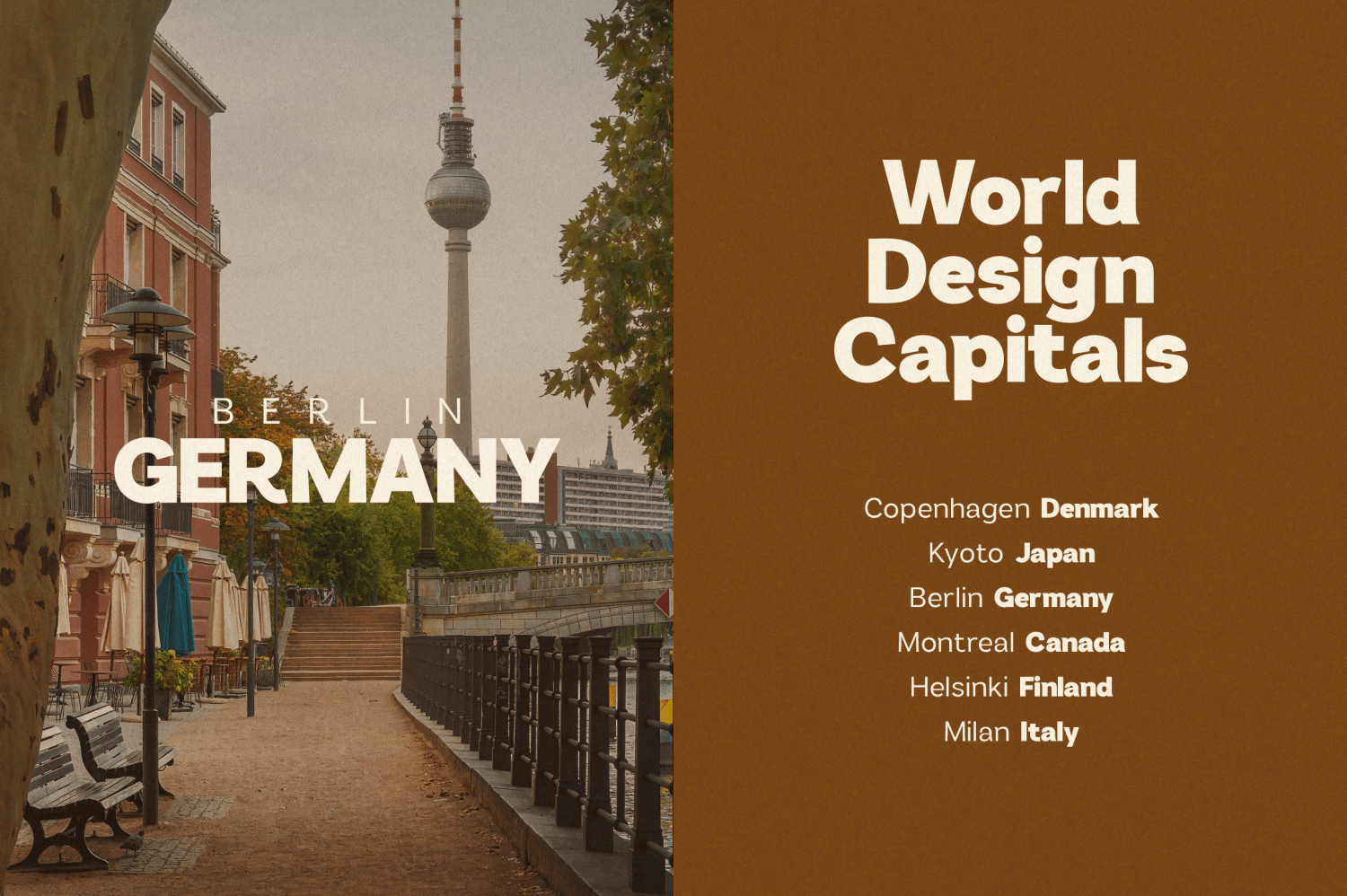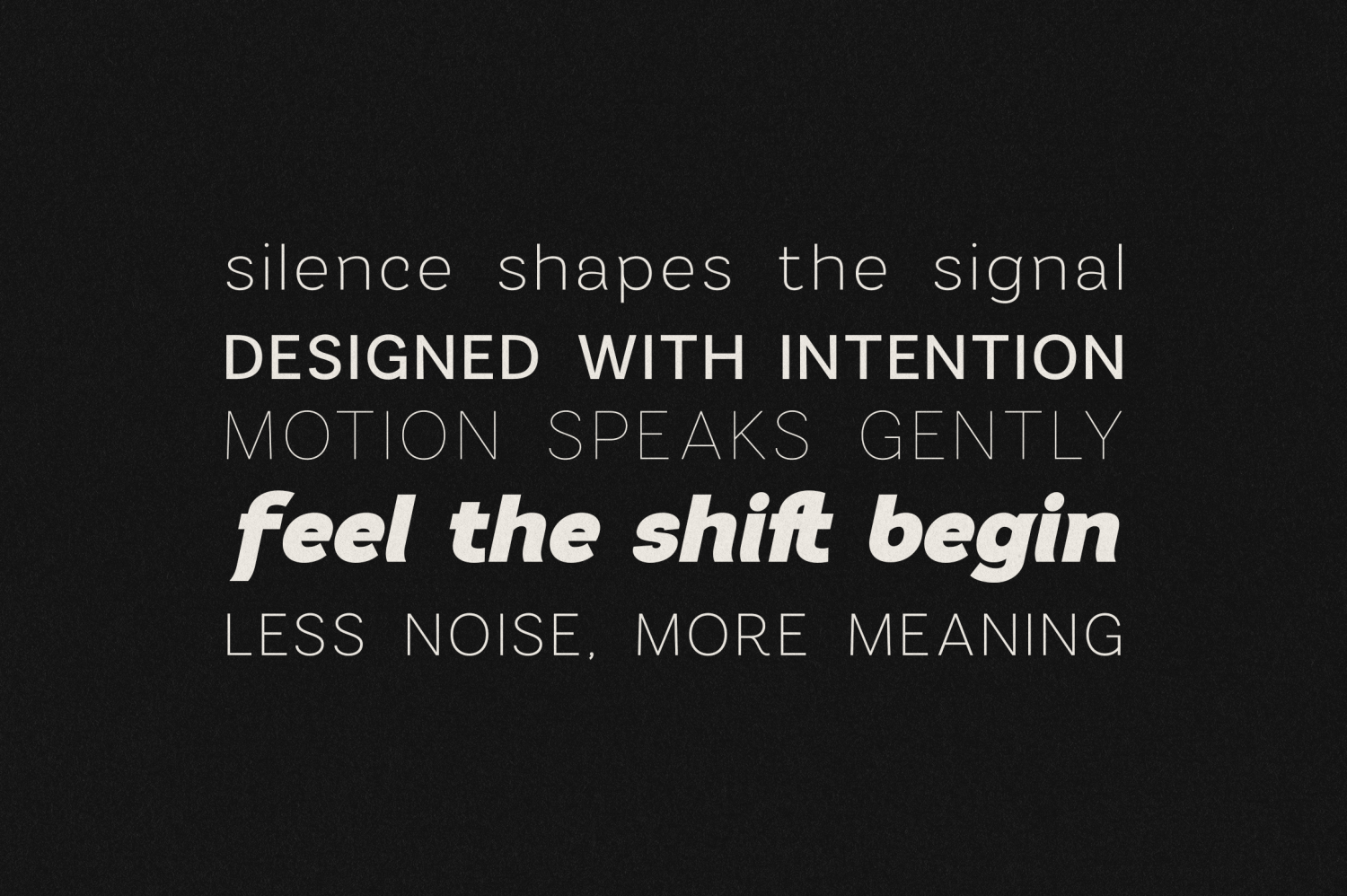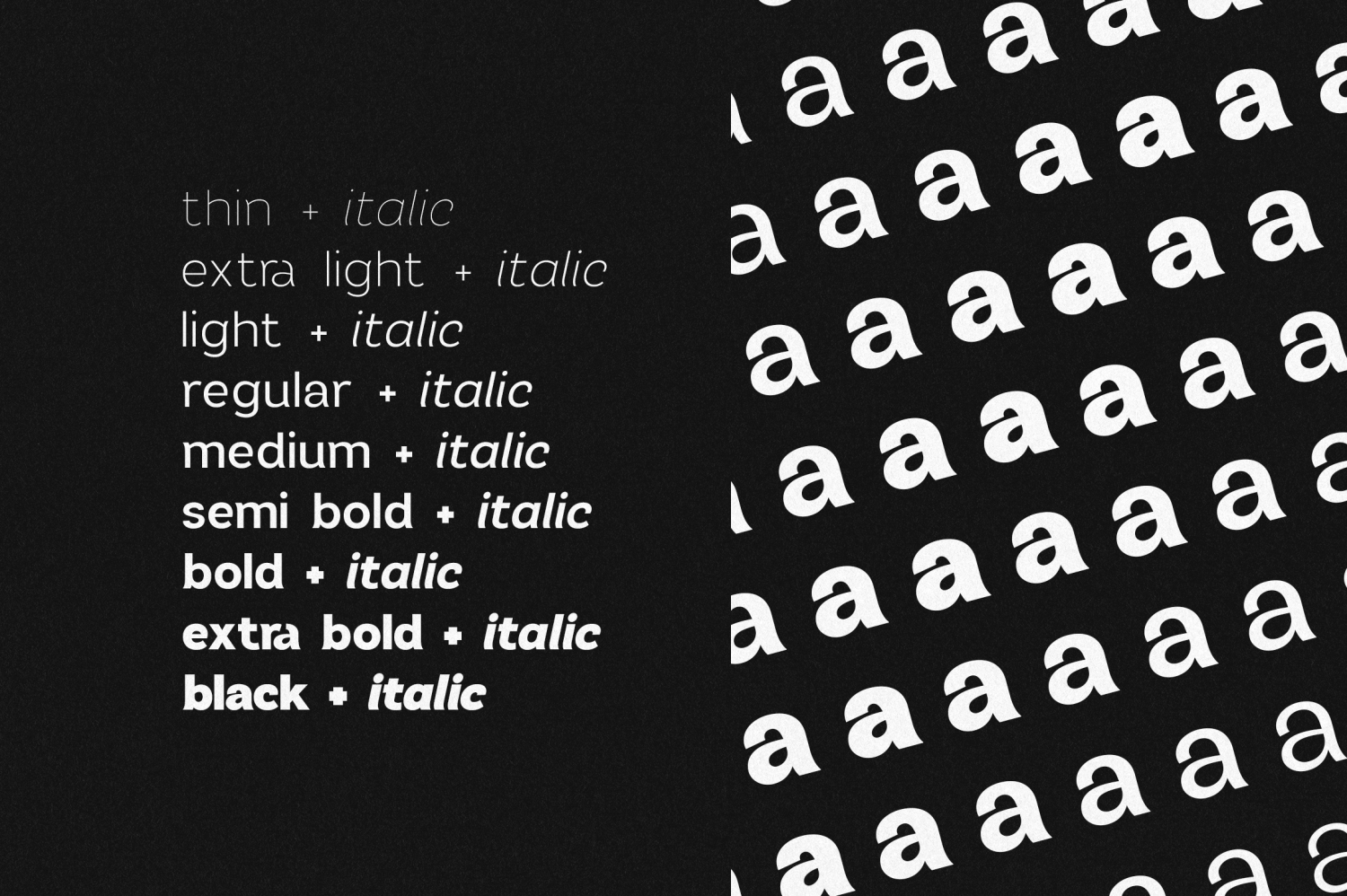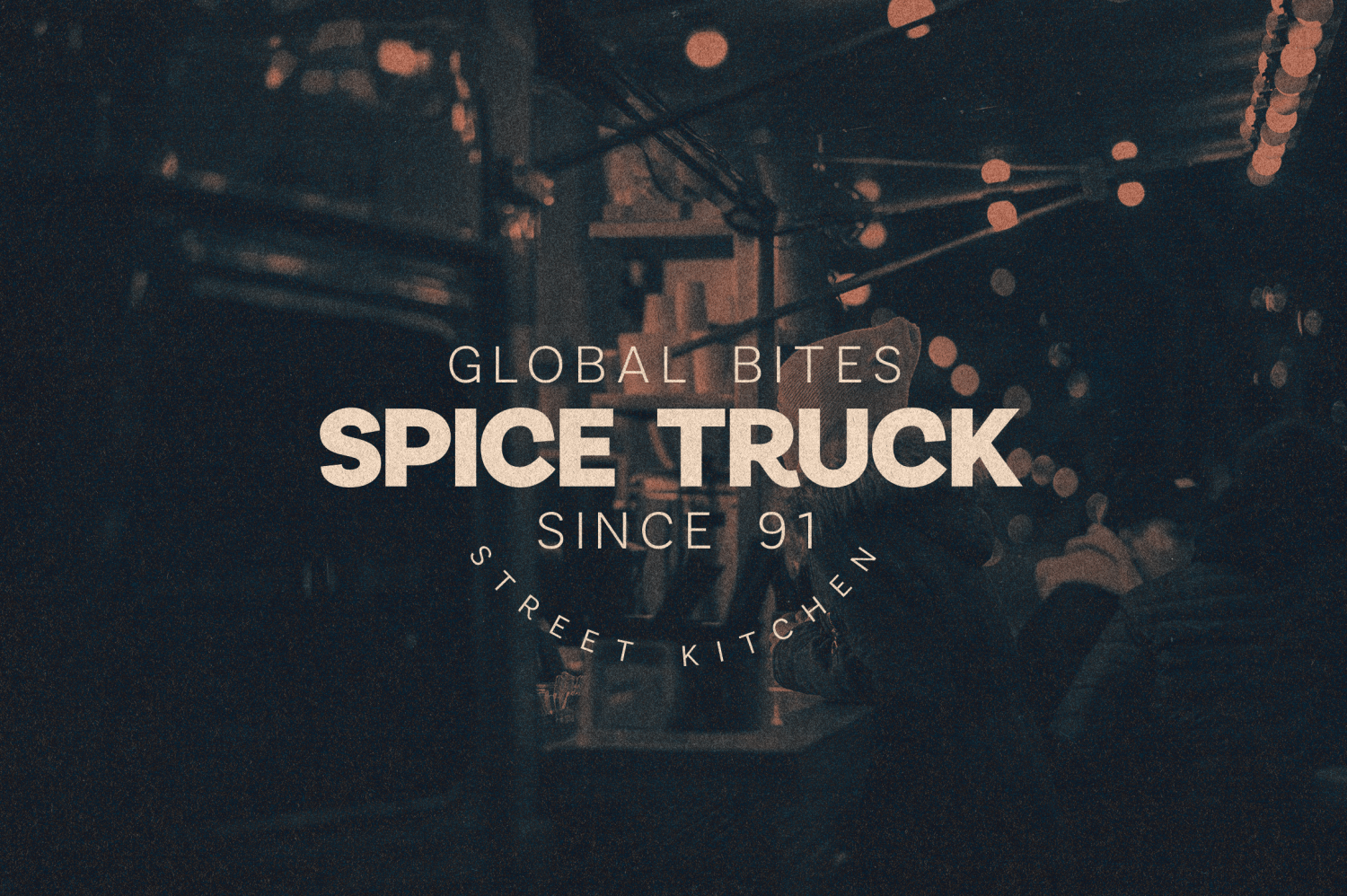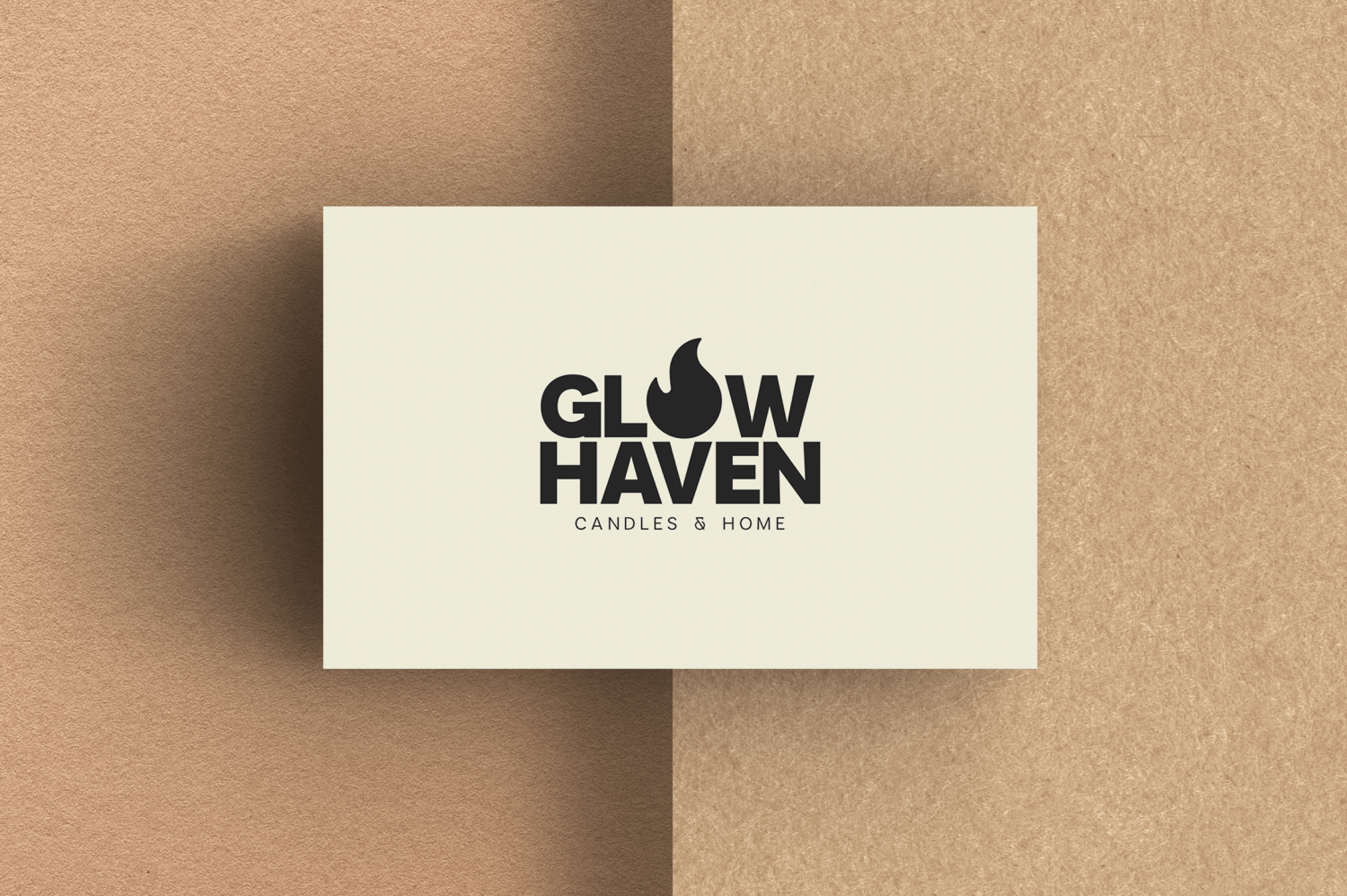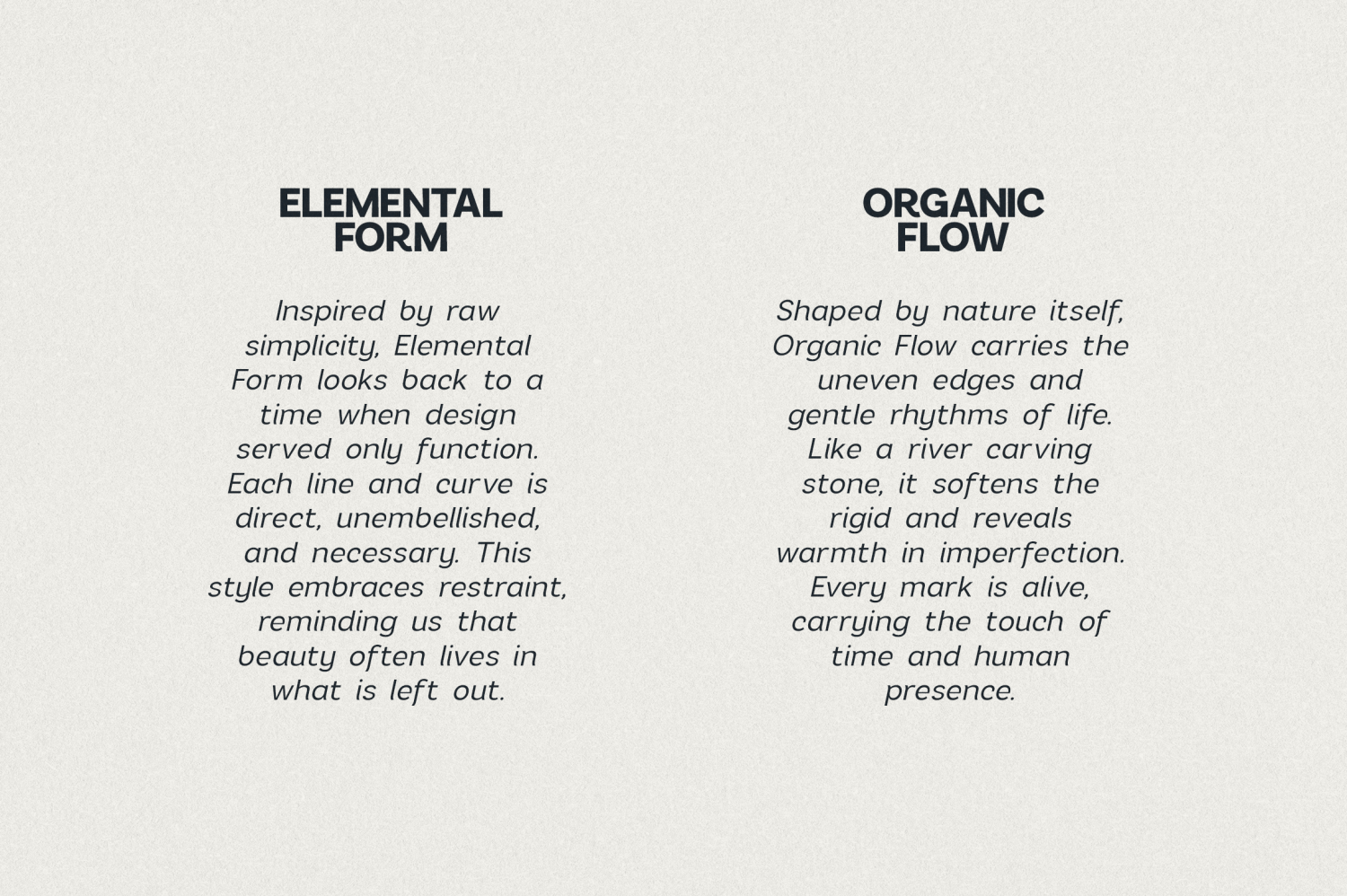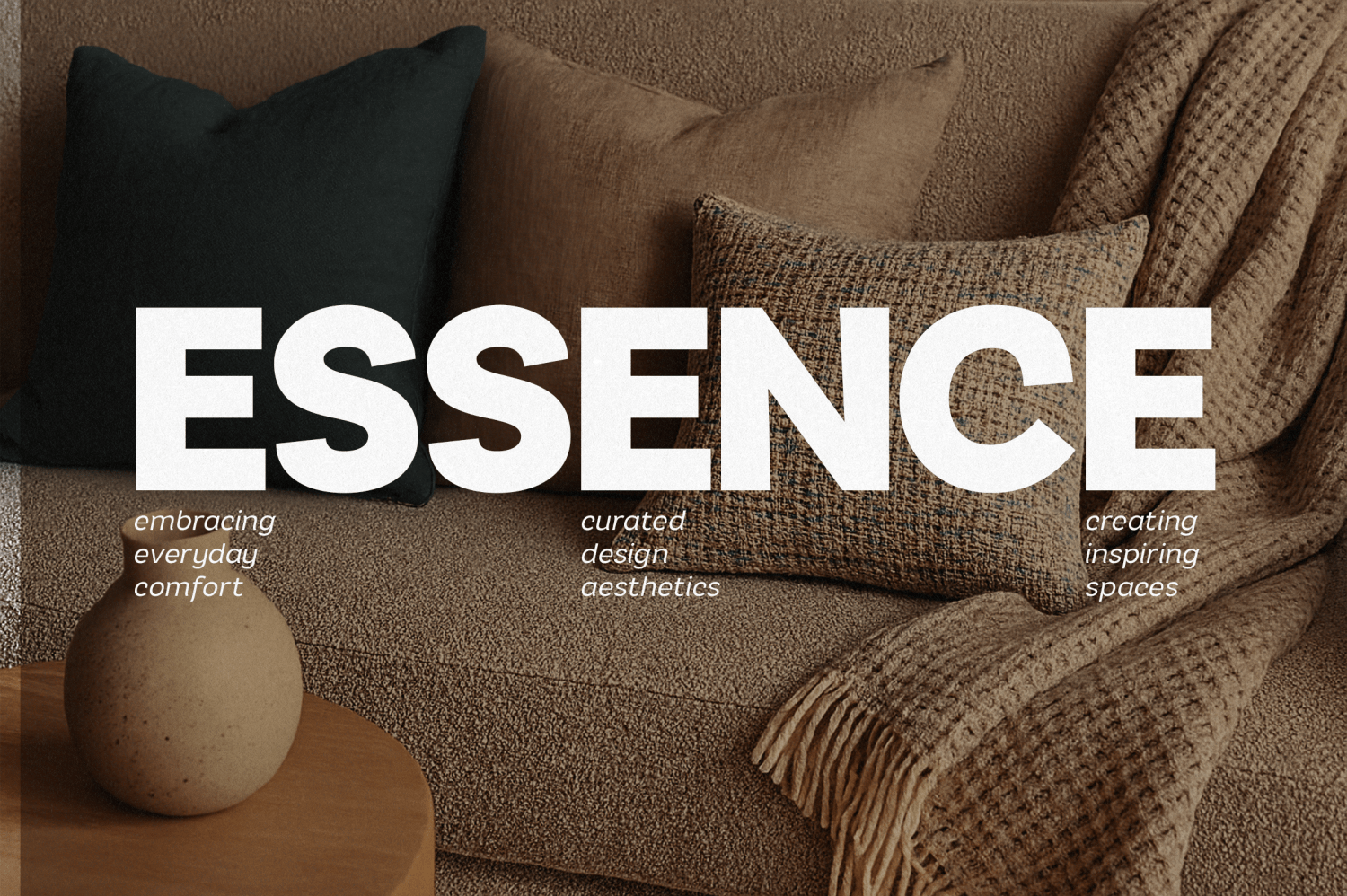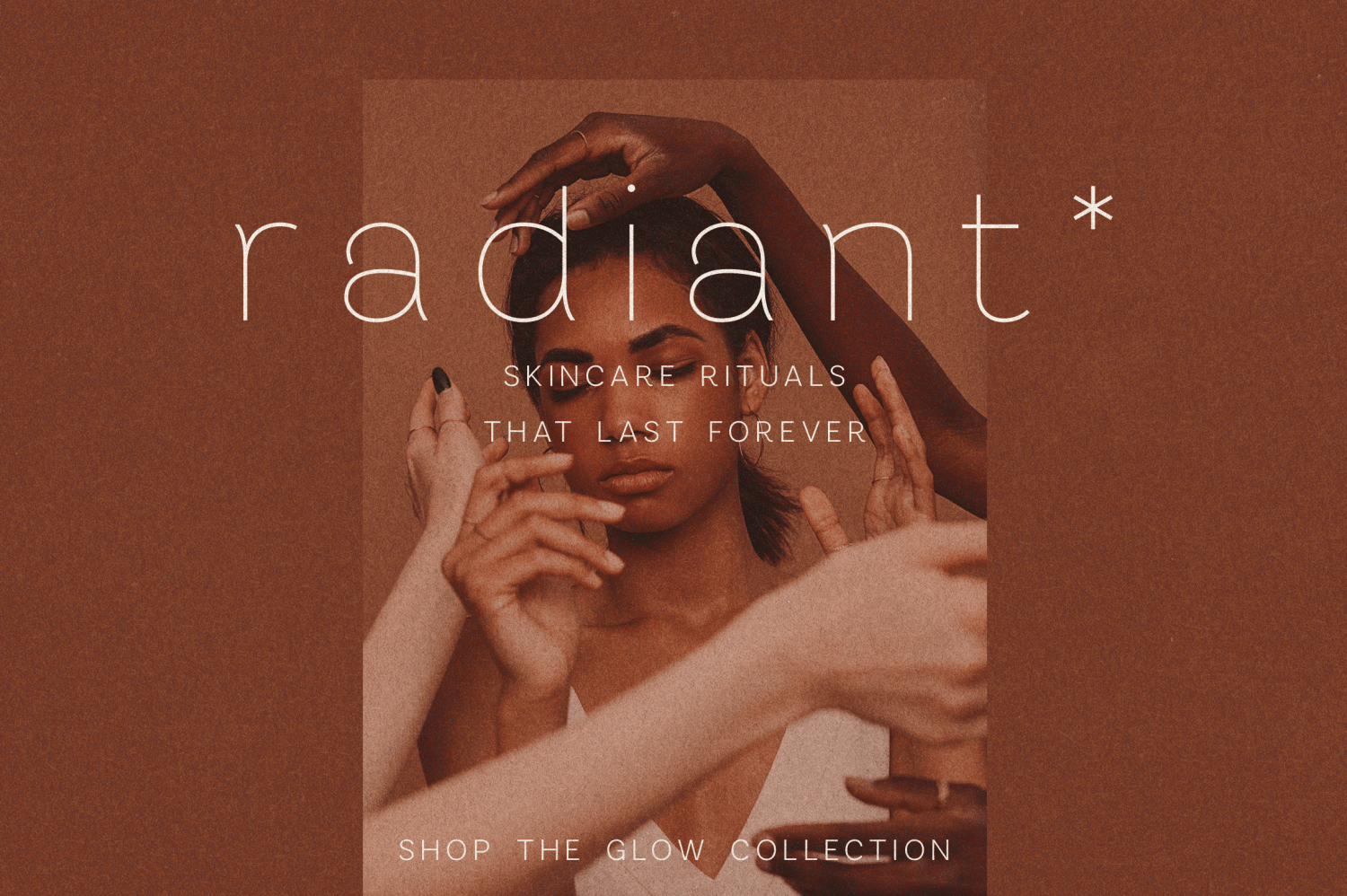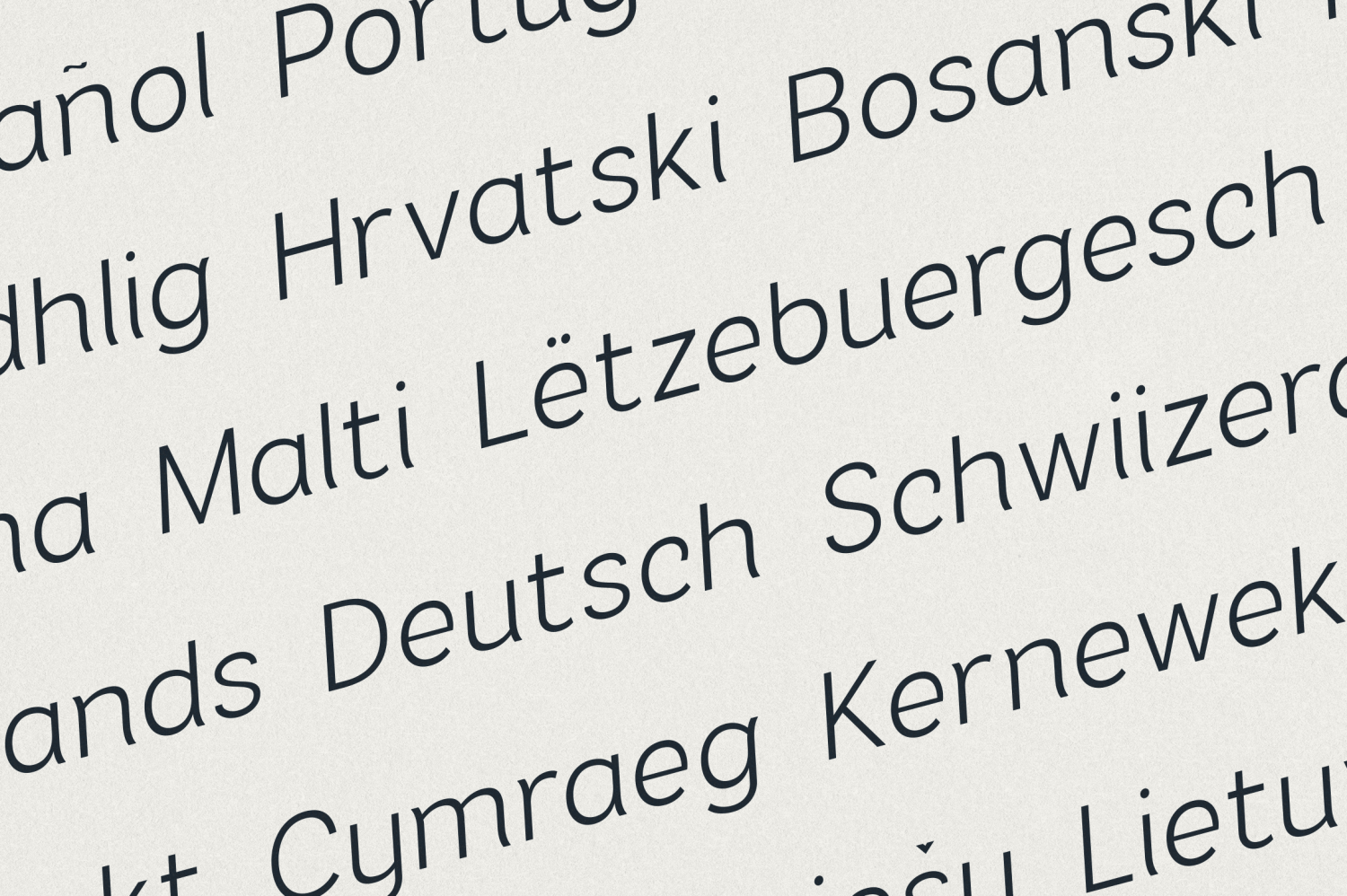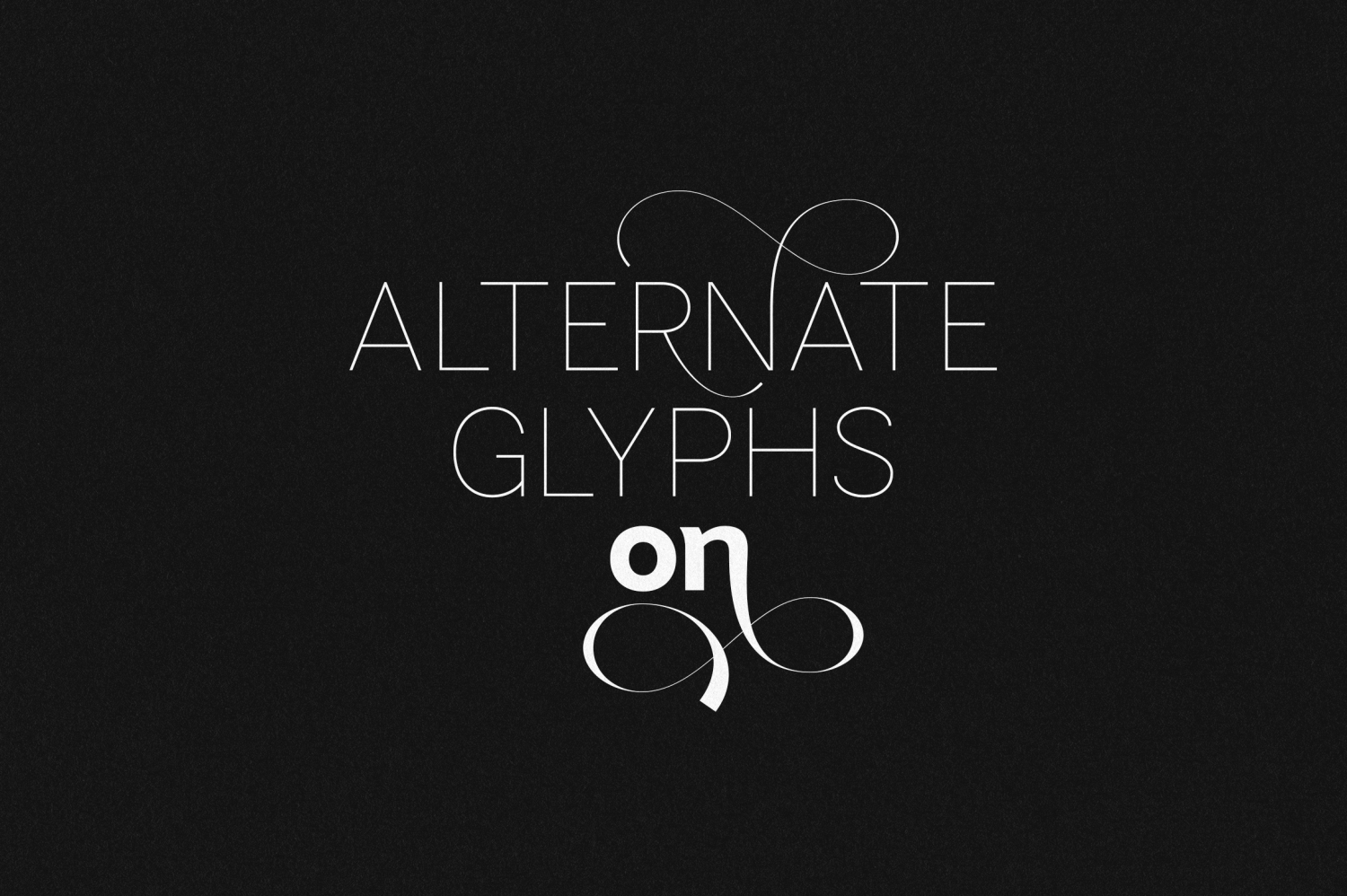
Modo
Modo – Modern Sans Serif Typeface with Alternates, Ligatures & Multilingual Support
Modo is a contemporary sans serif typeface designed to balance clean minimalism with expressive creative flair. Featuring nine weights with matching italics, Modo adapts seamlessly from elegant thin lines to powerful bold statements. Its creative alternate glyphs and stylish ligatures add personality, making it perfect for branding, editorial layouts, packaging, logos, and digital experiences.
With support for 85+ languages, Modo ensures global usability, covering extended Latin alphabets and essential typographic symbols. Whether you’re crafting sophisticated headlines, minimalist body text, or eye-catching displays, Modo offers a versatile typographic solution for modern designers.
Key Features:
• Sans serif typeface with a modern, versatile design
• 9 weights + matching italics (Thin to Black)
• Creative alternate glyphs & ligature options
• Extensive language support (85+ languages)